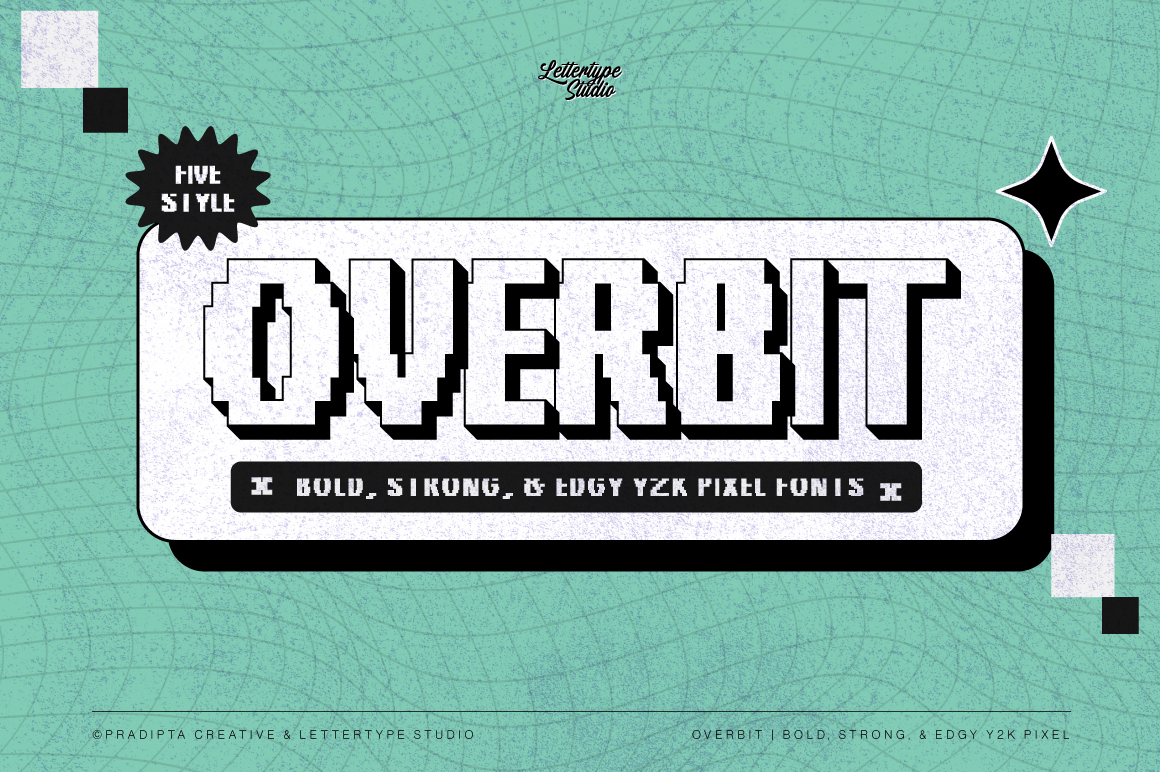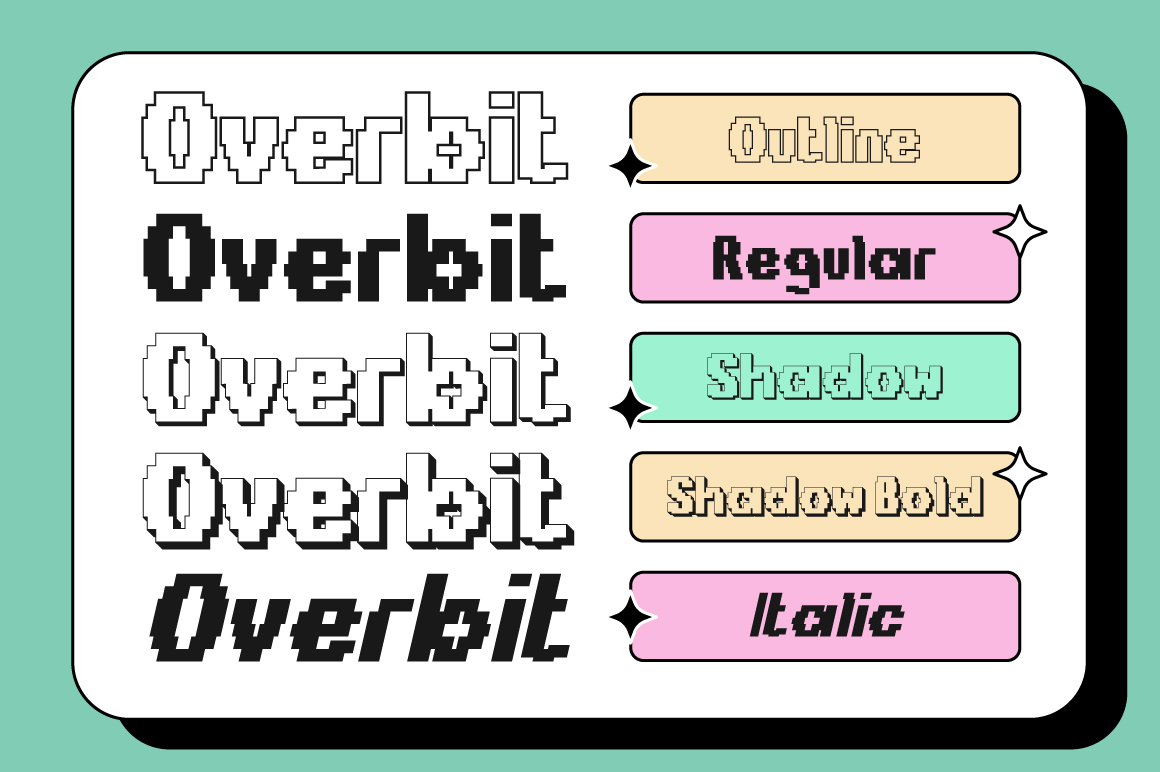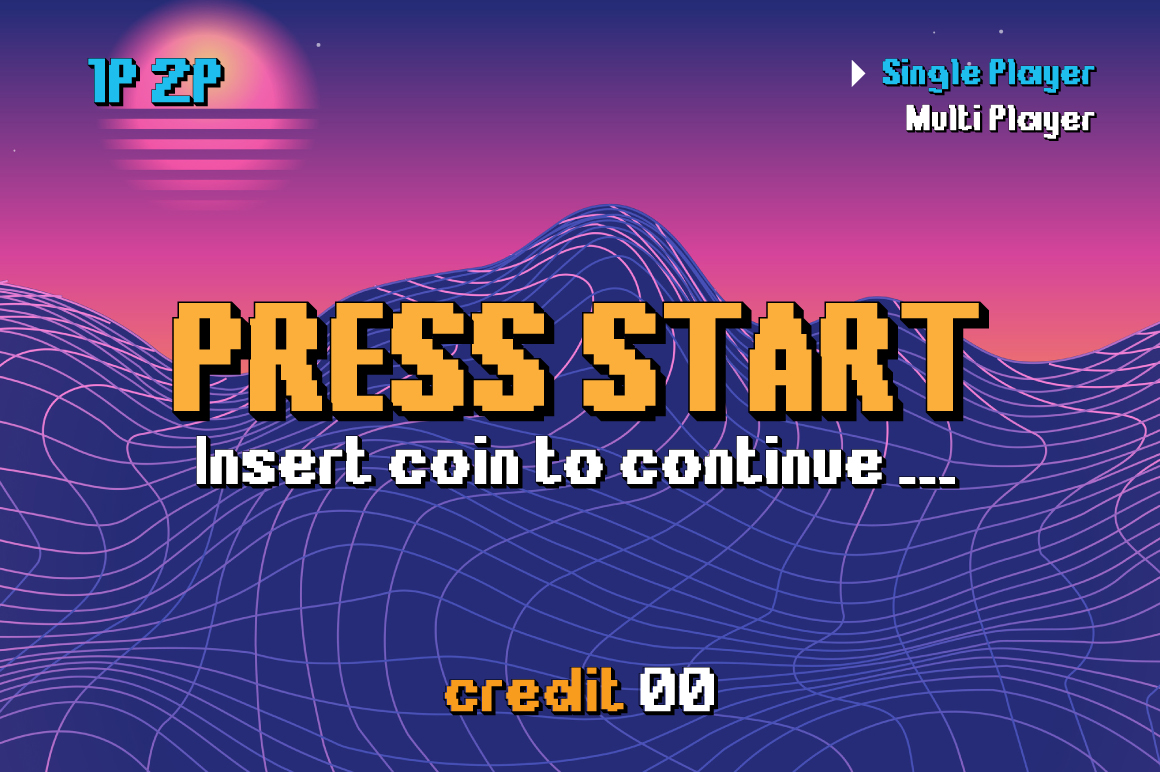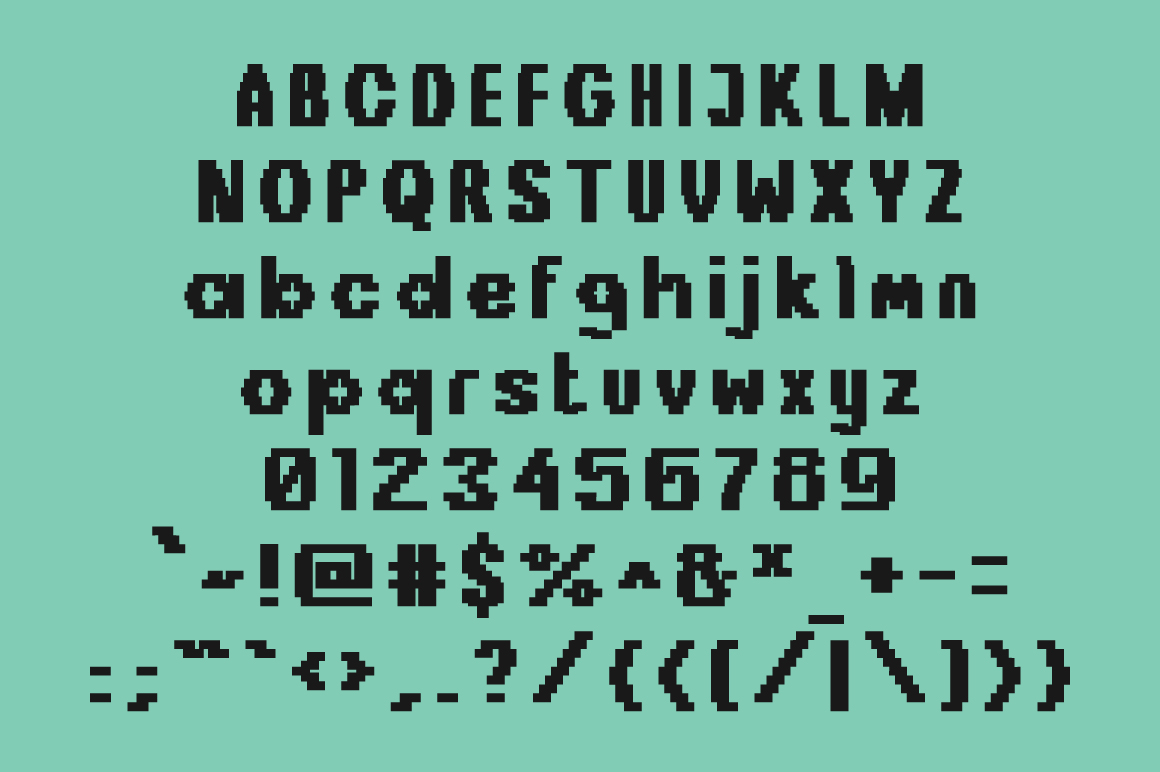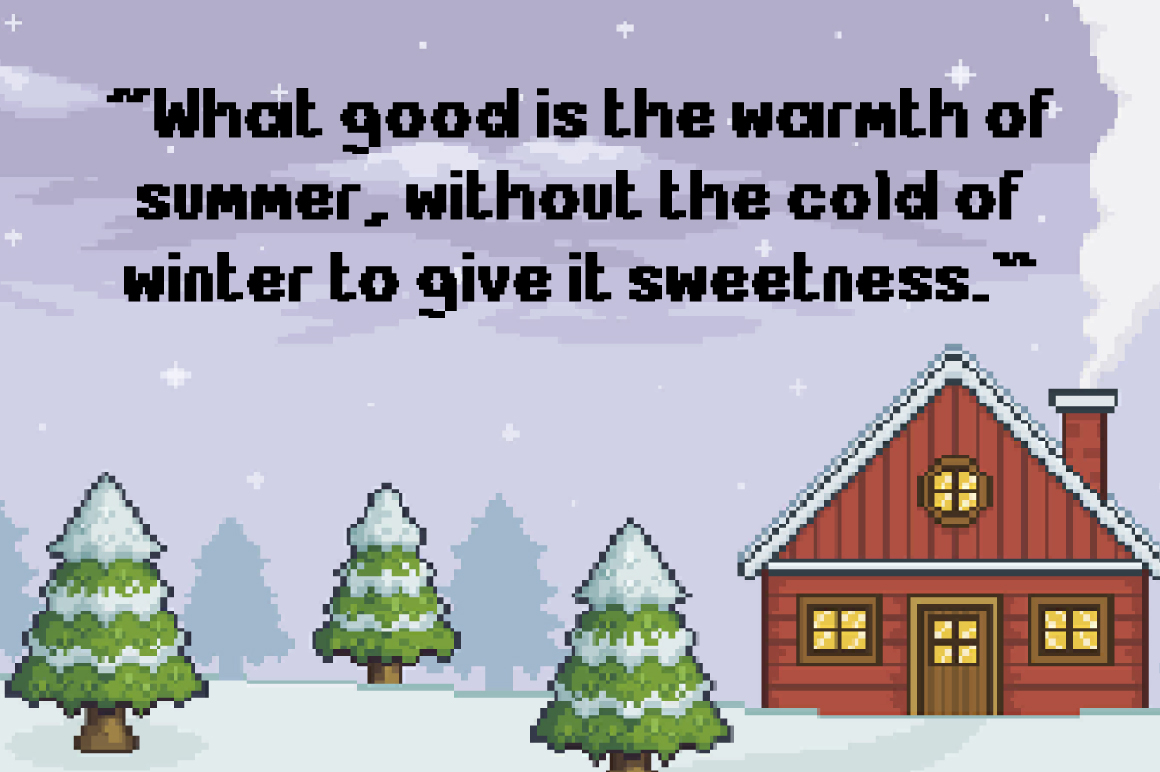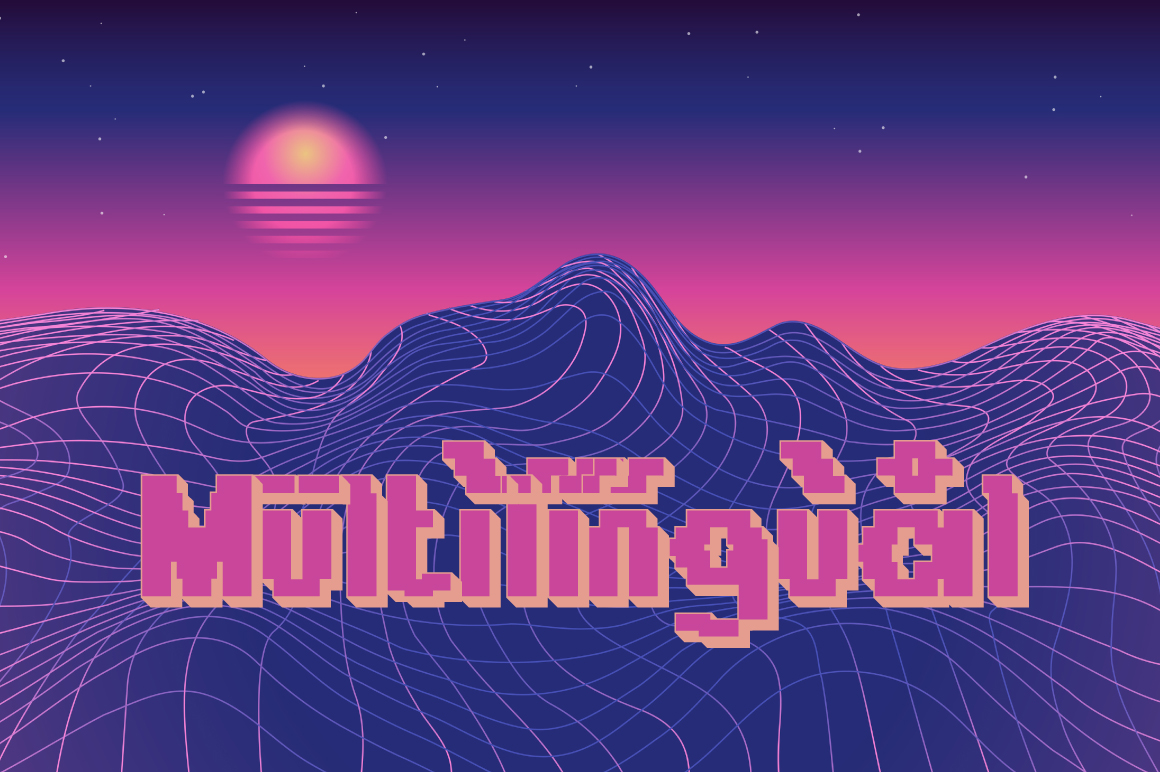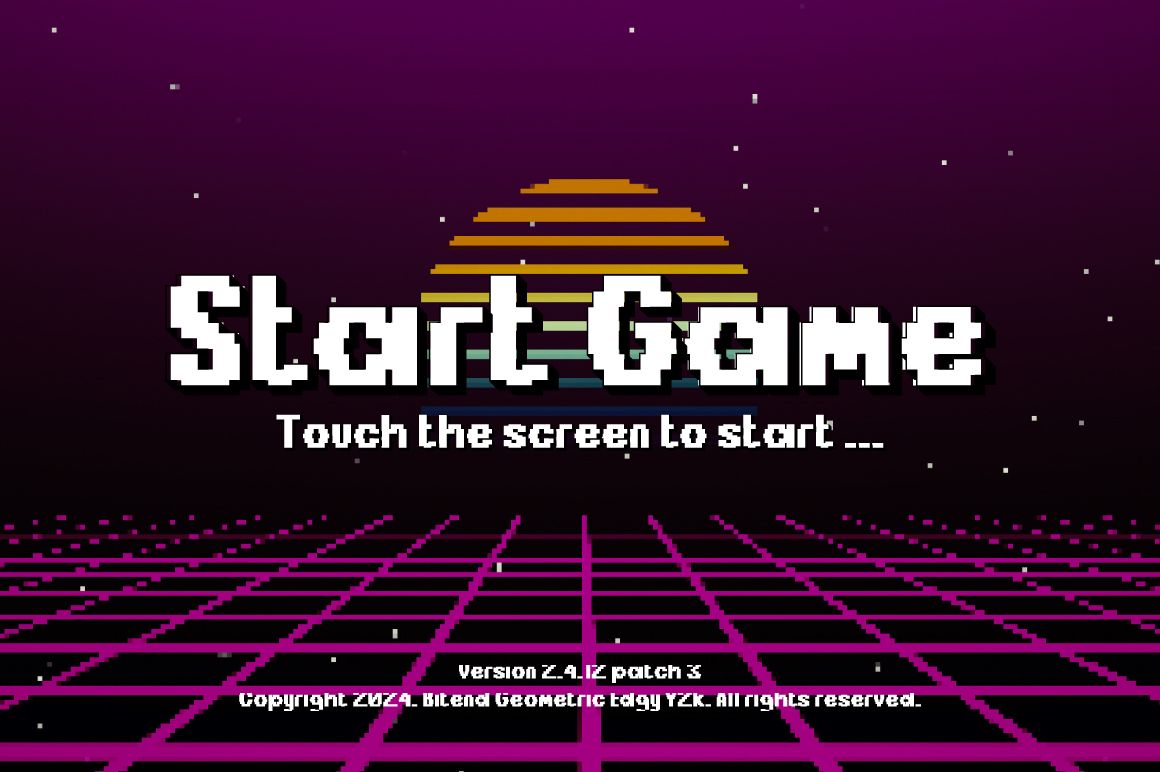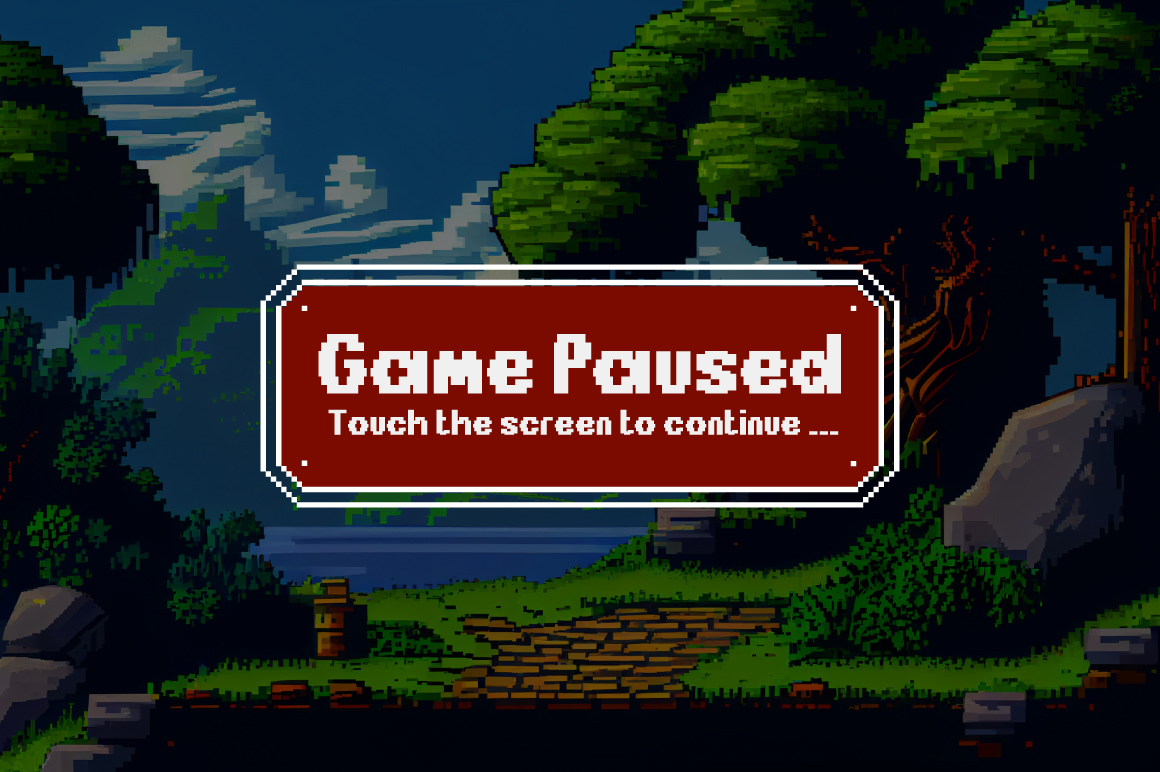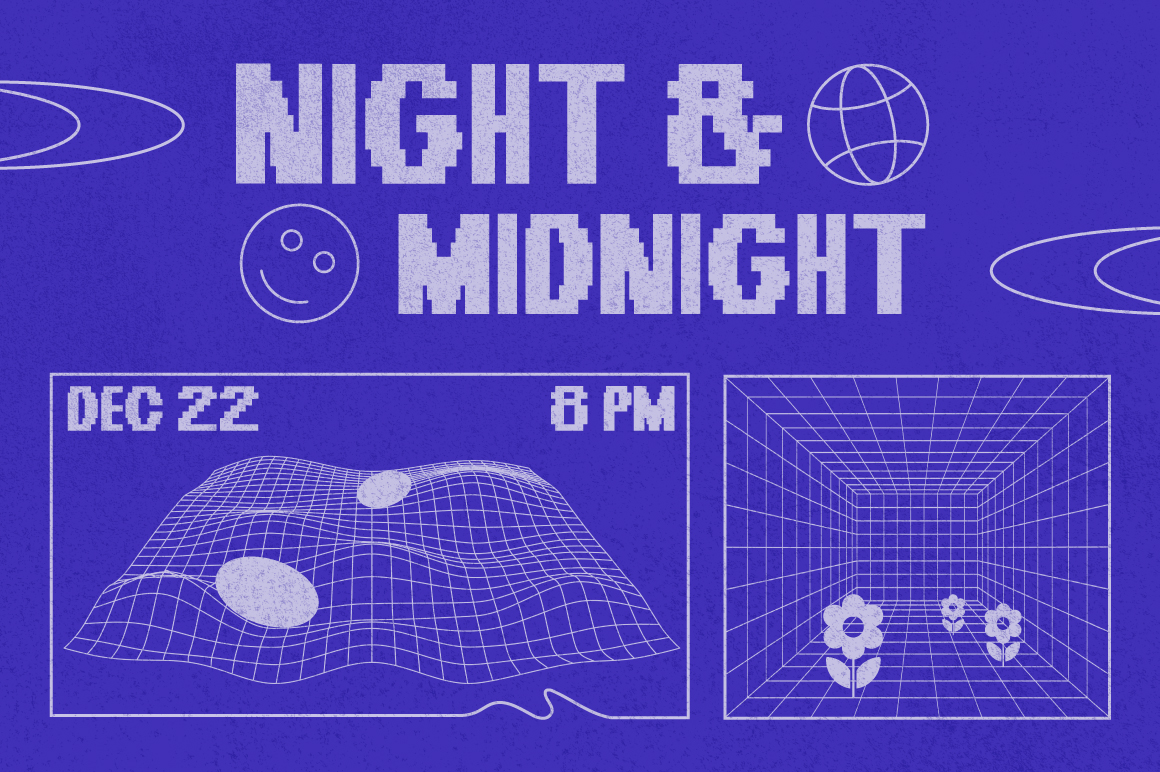
Overbit is a bold pixel Y2K display font that merges retro 80s video game energy with early 2000s futuristic flair. With five distinct styles â Regular, Outline, Italic, Shadow, and Shadow Bold â it offers versatility and personality for a wide range of creative projects.
Perfect for posters, gaming interfaces, and digital branding, Overbit brings playful nostalgia and strong geometric precision. Its unique retro-futuristic character makes it ideal for designers who want to combine vintage charm with a modern, tech-forward aesthetic.
- Lowercase & Uppercase
- Numerals & Punctuation
- Alternates & Ligature
- Multilingual Support
- Font Family (5 Styles)
- Retro game interfaces, pixel art & Y2K aesthetics
- Bold logos, digital posters, and nostalgic branding
- 80s/2000s-themed social media & website headers
- Motion graphics, album covers & tech visuals
- Playful creative projects with vintage flair